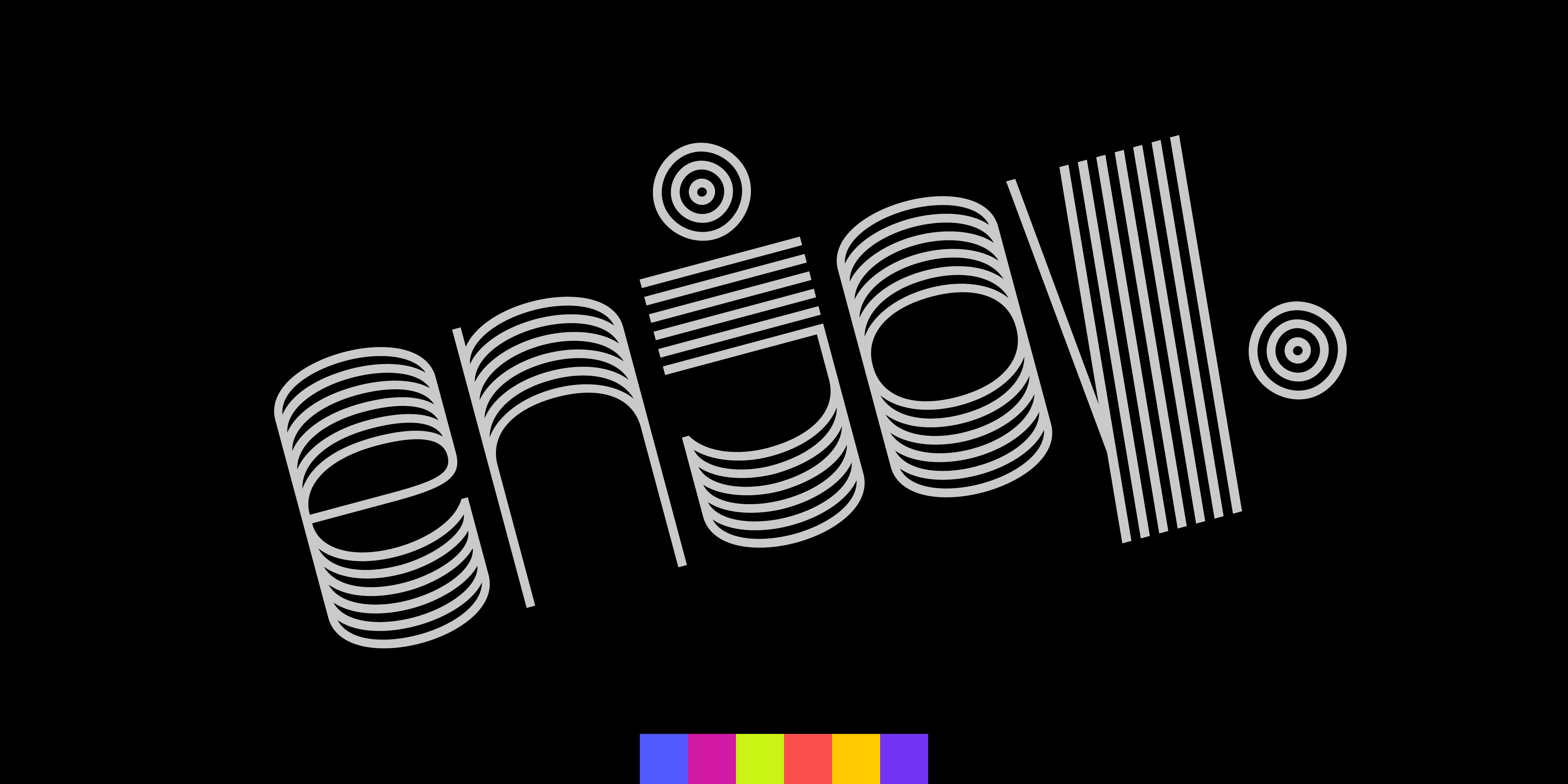
Name: Gustella
Designer: Thomas Thiemich
Foundry: Type By
Back Story: Gustella’s reverse contrast letterforms owe a debt to the extreme slab serifs of the late 19th century, seen on everything from the Wild West’s “Wanted” handbills to circus posters. However, Gustella also represents an extension of the slow evolution of this style that crept along through the decades, worming its way into 1960s psychedelic poster lettering and strolling into the 1970s (take, for example, the record sleeve of David Bowie’s 1971 album Hunky Dory). But don’t think of this as a revival of any sort; Thomas Thiemich of the Belgian-based foundry Type By describes Gustella as “a very specific cherry on the pie,” and he’s not wrong. The typeface advances the design of reverse contrast letters, introducing a modern sense of depth and dimension in its flat-sided characters that look almost as if they were razored and molded out of stiff paper. The Type Director’s Club of New York City recognized Gustella this year with an award for typeface design.
Why’s it called Gustella? “Every type project has a work-in-progress name,” says Thiemich. “Mine are often constructed from syllables I like hearing and saying, combined with the letters that represent the overall design of the typeface best.” Gustela was a working name that stuck, although it had no literal meaning. It was just a vague reference to the Latin/Italian word “gusto,” or “taste.” The only change was adding an extra “L” to its original spelling, allowing the word to roll smoothly off the tongue. That’s better.
What are its distinguishing characteristics? Gustella’s stark reverse contrast letters flaunt wide, extended counters inside narrow condensed shapes. Its modular outer surfaces emphasize the monospace quality of the typeface (all variants share identical metrics), while the playful counter shapes lend some sparkle. Its four styles—Solid, Boxed, Inline, and Stripes—come in four weights (Stripes is definitely the most fun, though, as the number of stripes per character corresponds to the weight). The overall effect is as endearingly goofy as a pair of 1970s ultra wide bellbottoms. Different styles can be overlaid and colored in layers for added entertainment.
What should I use it for? Gustella works well anywhere a free spirit is welcome: posters, packaging, wordmarks, movie titles, and bold advertising campaigns all come to mind.
What other typefaces do you like to pair it with? “I like to combine it with Remo to underline the ’70s touch of it,” says Thiemich. Again, he is not wrong. Remo’s fat, juicy characters are not exactly shy, so if you’d prefer to let the other typeface take a backseat to Gustella’s theatrics, try something like Grafik—a quiet typeface that will hold its own very nicely.